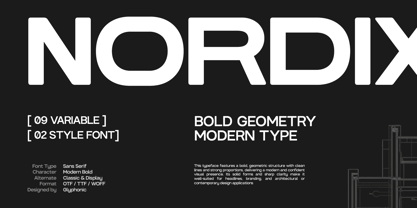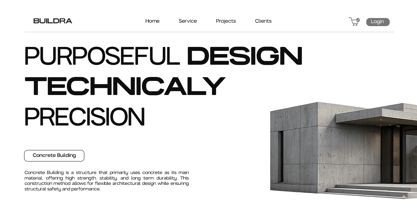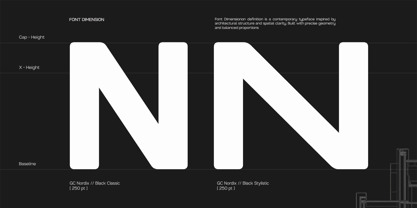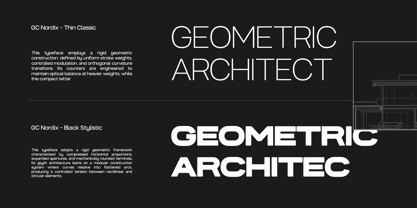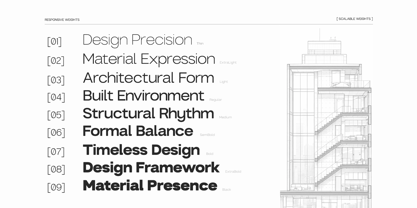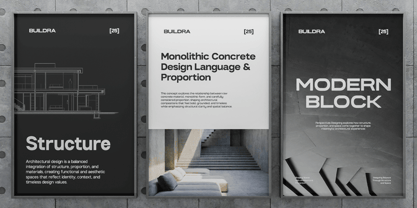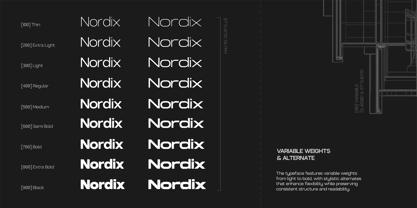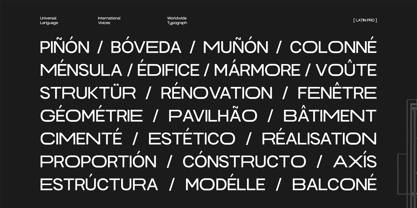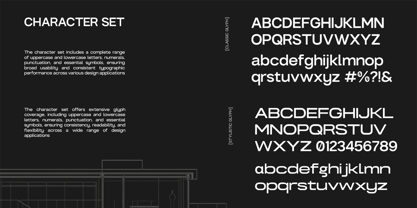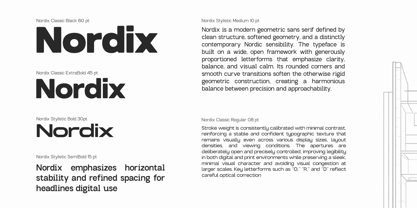
GC Nordix
The GC Nordix Font Family was designed by Muhammad Hafiizh Solana and published by Onyx Studio. GC Nordix contains 9 styles and family package options. More about this family
GC Nordix – Bold Geometric Type is a contemporary sans serif typeface built on strong geometric foundations and modern proportions. Designed to deliver bold clarity and confident structure, Nordix presents a clean yet powerful typographic voice suited for modern visual communication. With solid forms, sharp edges, and balanced geometry, GC Nordix is crafted to perform seamlessly across digital and print media. Its bold construction makes it ideal for headlines, branding systems, editorial layouts, and modern architectural or tech-driven design projects—where strength and precision are essential. As a variable typeface,** GC Nordix** offers flexible weight control, allowing designers to fine-tune visual hierarchy and adapt typography across multiple layouts and platforms with ease. Despite its bold presence, the font maintains clarity and legibility, ensuring consistency without sacrificing character. Whether used for striking headlines, scalable interfaces, or minimalist posters, GC Nordix brings structure, modernity, and geometric impact to your typography. Features: - Variable Font (Adjustable Weight Axis) - Uppercase & Lowercase - Numbers & Punctuation - Bold Geometric Construction - Multilingual Support (170+ Languages) Bring bold geometry, flexibility, and modern strength to your design with GC Nordix.